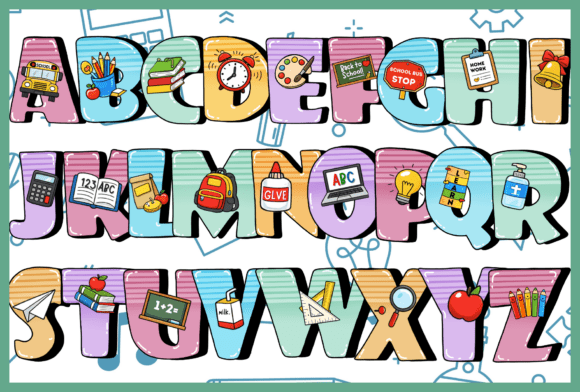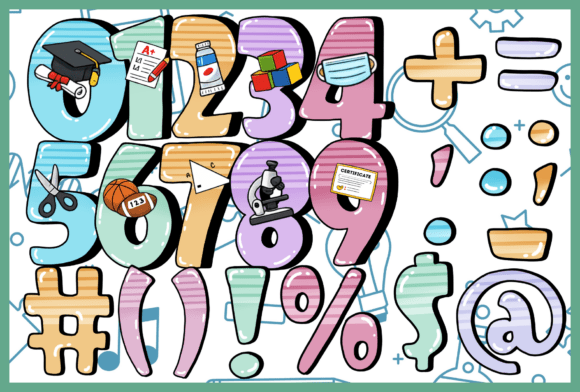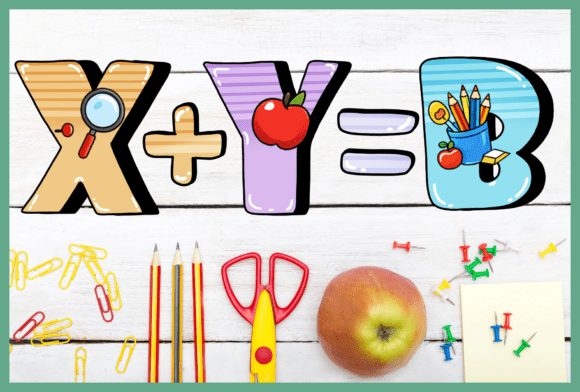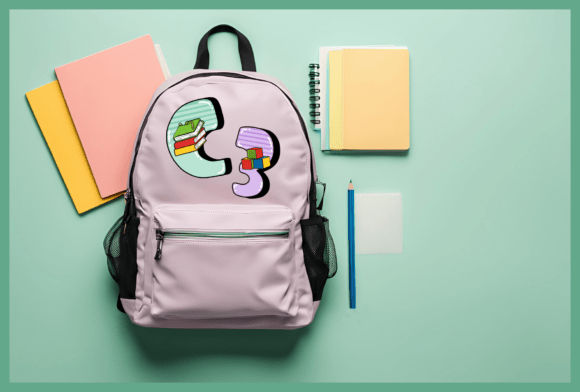
Get Ready for a Fun-Filled School Year with the Back to School Font
As the summer days come to an end and the new school year approaches, many of us are scrambling to create engaging materials for our students. Whether you’re a teacher, homeschool parent, or classroom creator, you know the importance of making learning fun and exciting. That’s where the Back to School Font comes in – a delightful alphabet set designed to bring a playful touch to your school-themed projects.
This charming font features uppercase letters, numbers, and symbols adorned with whimsical school elements like pencils, books, and backpacks. Its bright pastel style and bold outlines make it a perfect choice for creating eye-catching educational resources. With the Back to School Font, you can add a personal touch to your lesson plans, worksheets, and classroom decorations, making learning a joy for your students.
- Unique Characteristics: Designed with a playful, educational theme, featuring a mix of modern and vintage elements, perfect for back-to-school materials, educational resources, and children’s content
Back to School Font Review
I recently had the chance to work with the Back to School Font, and I’m sharing my honest thoughts on it. ✨ Let’s start with the good stuff.
- Customization options are plentiful, allowing you to adjust the color, size, and even add some fun animations to your text.
- The font itself has a playful, youthful vibe that’s perfect for creating engaging educational content.
- It’s compatible with a wide range of devices and platforms, making it easy to use across different mediums.
Now, let’s talk about the limitations. ⚠️ While the font is generally easy to use, there are a few areas where it falls short.
- Some of the animations can be a bit glitchy on slower devices, which may affect the overall user experience.
- The font’s customization options can be overwhelming for beginners, making it difficult to find the right settings.
- There’s a limited selection of pre-made templates and designs, which may require more work to create custom content.
Overall, I think the Back to School Font has a lot of potential, but it could benefit from some refinement in certain areas. With a bit more polish, it could become a top choice for educational designers.
The Back to School font is perfect for creating educational materials, such as:
- Back to school posters and flyers
- School newsletters and announcements
- Lesson plans and handouts
Use the font to create a fun and engaging atmosphere, and to communicate important information to students and parents.